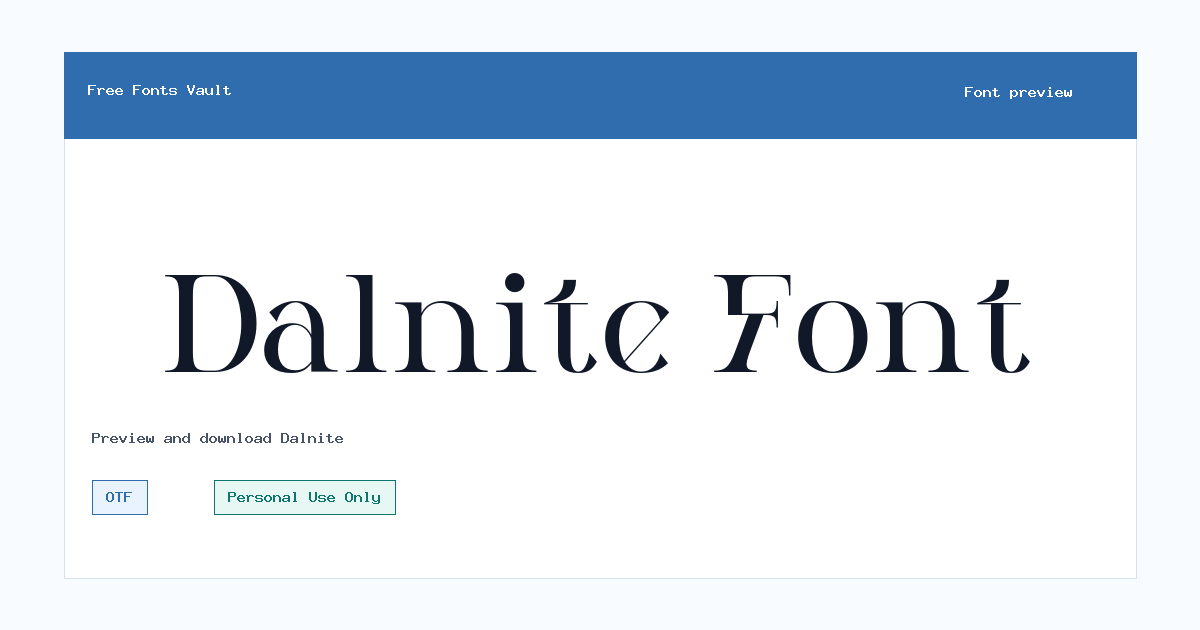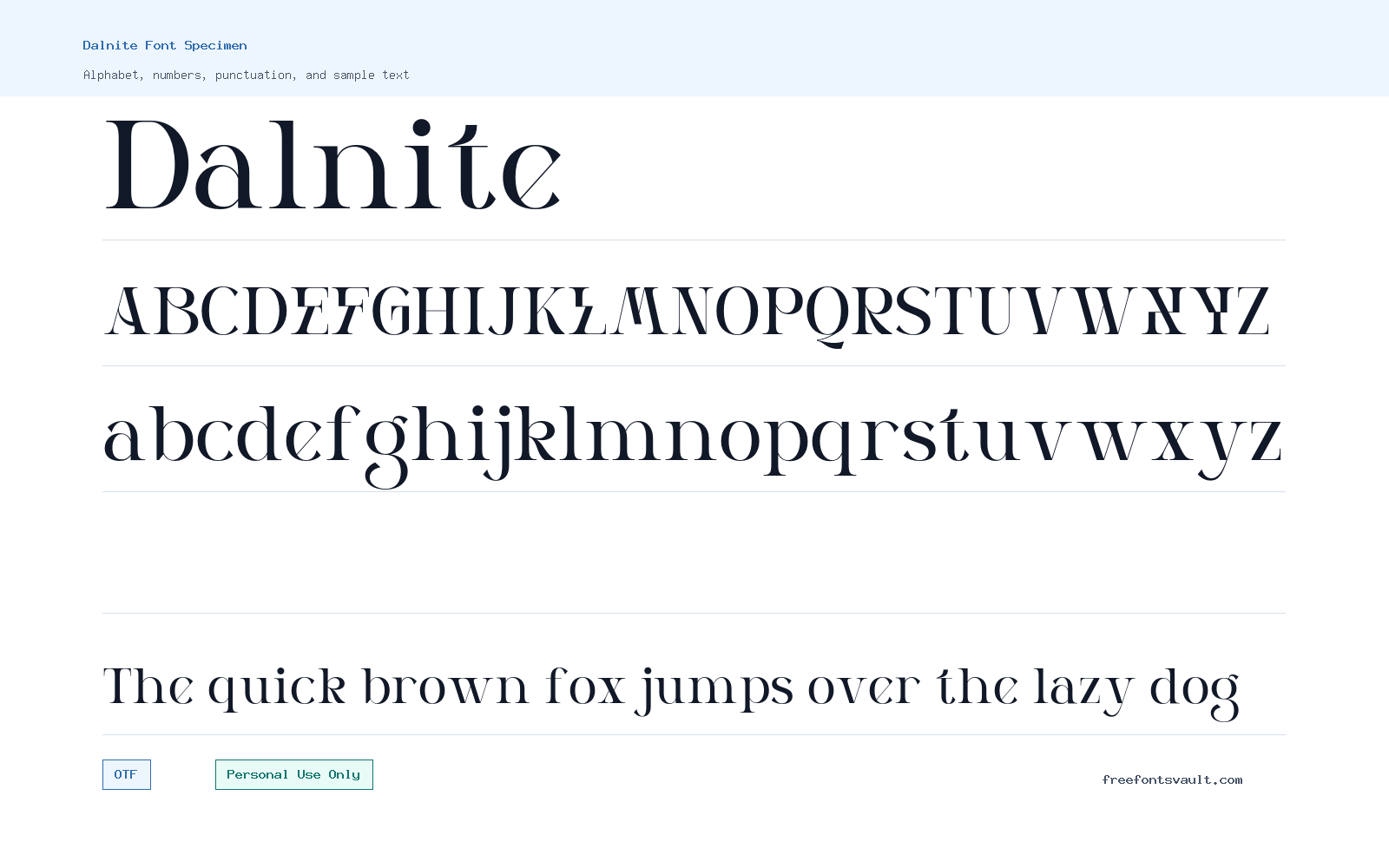
Dalnite
- Designer Ragamkata Studio
Dalnite font.
Dalnite is a serif font from Ragamkata Studio with a Personal Use Only license. It is best approached as a display-friendly typeface to test in titles, branding drafts, invitations, social graphics, and other non-commercial personal projects before downloading.
Dalnite works well when you need a serif voice that feels more refined than a plain body-text font. Because the font file is a regular OTF style, it is easiest to start with headlines, names, short phrases, and display settings where the letter shapes can be seen clearly. Try it in your own wording before committing to a design, especially if your text includes long names, mixed capitalization, numbers, or punctuation.
For visitors comparing fonts, the most useful test is not just whether Dalnite looks attractive in a sample word. Type the exact phrase you plan to use. Check how the spacing behaves between difficult letter pairs, how readable it stays at smaller sizes, and whether the serif details still hold up after export. If the design is for a poster, quote card, personal logo mockup, wedding draft, scrapbook title, or social post, preview it at the final size you expect to use.
- Personal display designs such as posters, invitations, quote graphics, mood boards, and social media images.
- Short text settings where a serif style can add a polished tone without needing multiple weights.
What kind of font is Dalnite?
Dalnite is identified as a serif font. That makes it a good candidate for titles, decorative headings, invitations, and other short text designs where a serif look fits the project.
Who designed Dalnite?
Dalnite is credited to Ragamkata Studio.